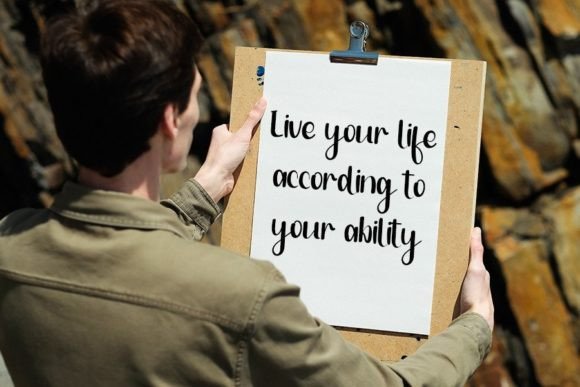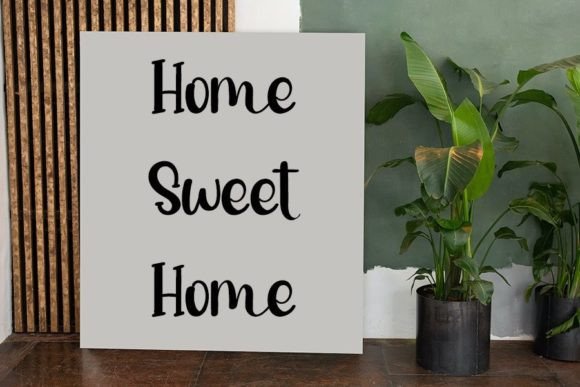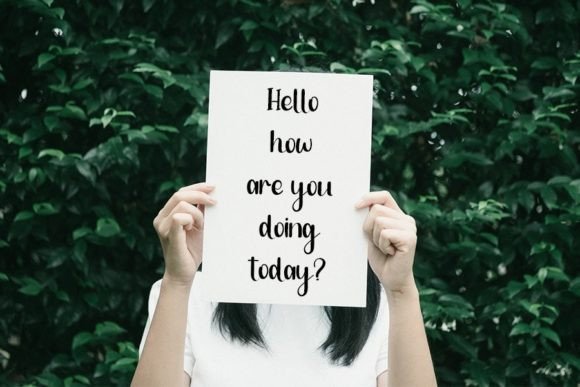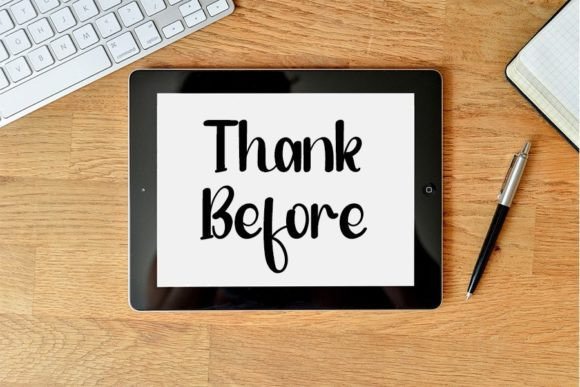
Discover the Elegance of Another Font: Elevate Your Designs with a Timeless Touch
In the vast and ever-evolving world of typography, finding the perfect font that captures the essence of your project can be a daunting task. However, if you’re on the lookout for a typeface that exudes elegance, sophistication, and a touch of personal warmth, then “Another Font” is sure to capture your heart. Described as a neat and beautiful handwritten font with an elegant touch, Another Font is the perfect companion for your favorite projects, offering an incredibly distinct and timeless style that promises to elevate your designs to new heights.
Handwritten fonts have a unique charm that digital and sans-serif fonts often can’t replicate. They bring a level of personal touch and authenticity to any design, making it more relatable and engaging. Another Font, with its beautifully crafted letters, embodies this charm while adding a layer of sophistication that is hard to achieve with more generic typefaces. Whether you’re working on a branding project, a wedding invitation, a personal blog, or any other creative endeavor, Another Font can add that special something that makes your work stand out.
Key Features of Another Font
- Elegant and Refined: Another Font boasts an elegant design that adds a touch of class to any project. Its refined strokes and beautiful letterforms make it perfect for designs that require a sophisticated look.
- Distinctive Style: What sets Another Font apart is its incredibly distinct style. In a sea of similar fonts, it manages to stand out with its unique character, ensuring your designs are always memorable.
- Timeless Appeal: Trends in design come and go, but Another Font’s timeless style ensures that your work remains relevant and stylish for years to come. It’s a font that won’t date quickly, making it a wise choice for projects where longevity is key.
- Versatility: Another Font is incredibly versatile, suitable for a wide range of projects. From professional business cards and elegant stationery to creative blogs and social media graphics, it can adapt to various design needs with ease.
- Easy to Read: Despite its elegant and refined nature, Another Font remains highly legible, making it perfect for both headings and body text. This ensures that your designs are not only beautiful but also functional.
How to Use Another Font in Your Projects
- Pair it Wisely: For maximum impact, consider pairing Another Font with complementary fonts. A classic combination is with a clean sans-serif font for body text, contrasting with Another Font for headings.
- Experiment with Sizes and Weights: Don’t be afraid to experiment with different sizes and weights of Another Font to create visual hierarchy and add depth to your designs.
- Play with Colors: While the font itself is a significant design element, the color you choose can dramatically alter the mood and effectiveness of your design. Consider the emotions and reactions you want to evoke and select colors accordingly.
Another Font is more than just a typeface; it’s a design companion that can help you create spectacular designs with an elegant and timeless touch. Its unique blend of sophistication, readability, and charm makes it an excellent choice for designers and crafters looking to add a personal and refined element to their work. Whether you’re a seasoned professional or a hobbyist, Another Font is sure to inspire your creativity and help your designs stand out in the best possible way.
So, fall in love with the distinct style of Another Font and discover how it can transform your projects. With its help, you’ll be well on your way to creating designs that are not only visually stunning but also deeply engaging and memorable.